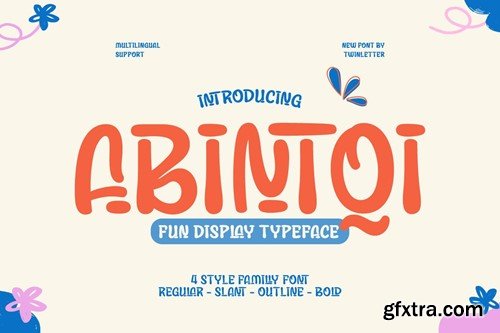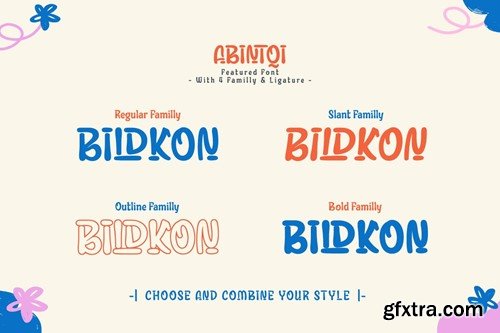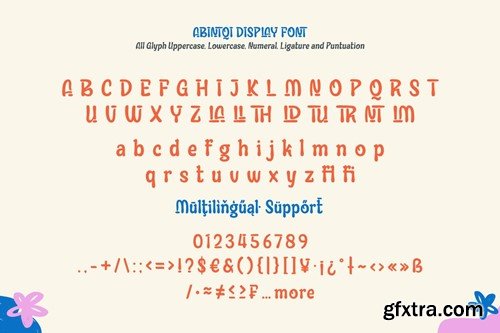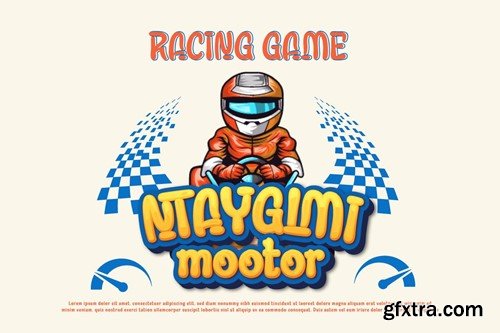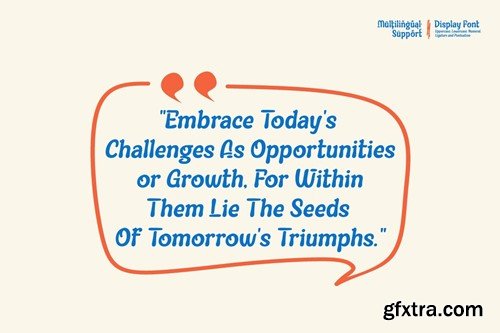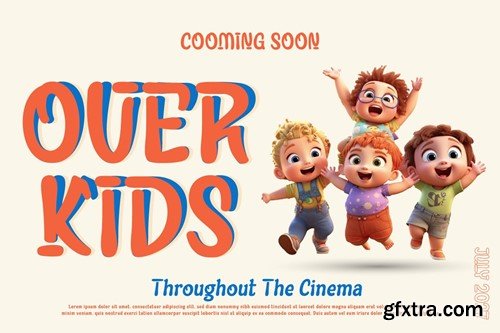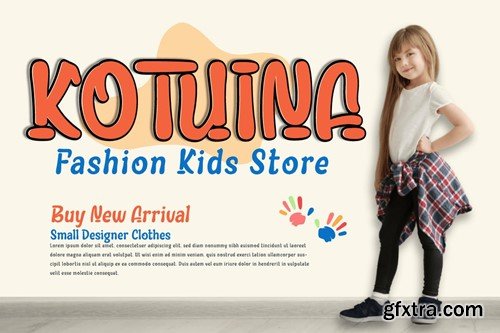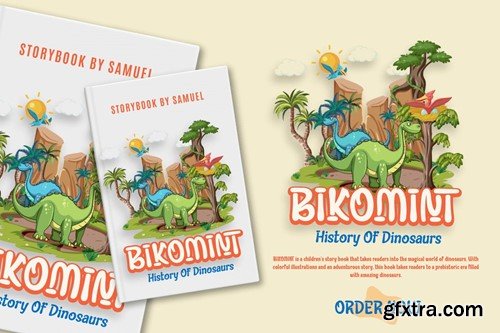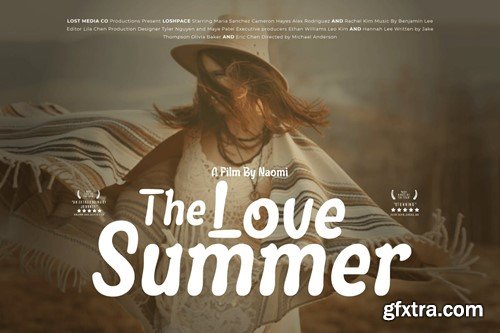
阿布intaqi - 玩趣展示字体ZAXEWDZ
Abintqi - Playful Display Font ZAXEWDZ
Abintqi - Playful Display Font
Bring a touch of playfulness to your designs with Abintqi, an adorable and eye-catching display font. Designed to highlight the playful side of each work, Abintqi presents a cheerful and encouraging atmosphere. Ideal for children's designs, creative products, or projects that need a touch of playfulness, this font brings warmth and happiness into every detail.